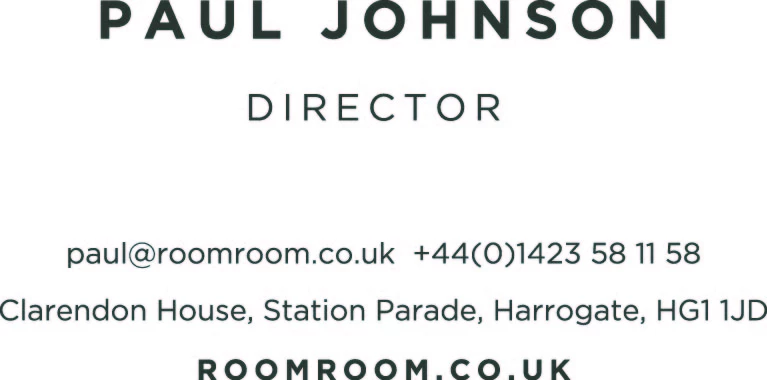
Is there anyone that recognises this font?  I have used the font finder websites and it either pulls up the wrong one or too many to tell the difference? Thank you
It looks like the Gotham type family.
Gotham is a very popular (and arguably over-used) typeface. It's not cheap to buy, but it's one of the most noteworthy typefaces designed since the 2000's. Montserrat is a popular open source alternative. It doesn't look exactly like Gotham, but is a similar geometric sans typeface. Proxima Nova is another commercial option that's available to sync via Adobe Fonts. Both Montserrat and Proxima Nova have substantially larger character sets than Gotham.
It looks like the Gotham type family.
Gotham is a very popular (and arguably over-used) typeface. It's not cheap to buy, but it's one of the most noteworthy typefaces designed since the 2000's. Montserrat is a popular open source alternative. It doesn't look exactly like Gotham, but is a similar geometric sans typeface. Proxima Nova is another commercial option that's available to sync via Adobe Fonts. Both Montserrat and Proxima Nova have substantially larger character sets than Gotham.